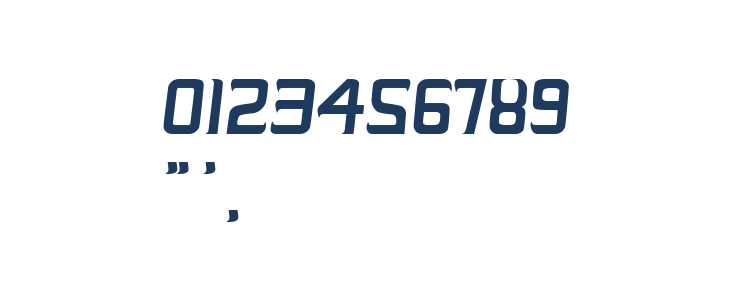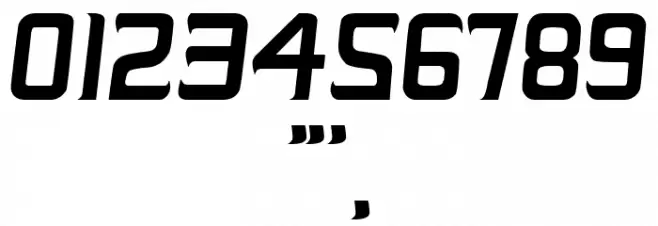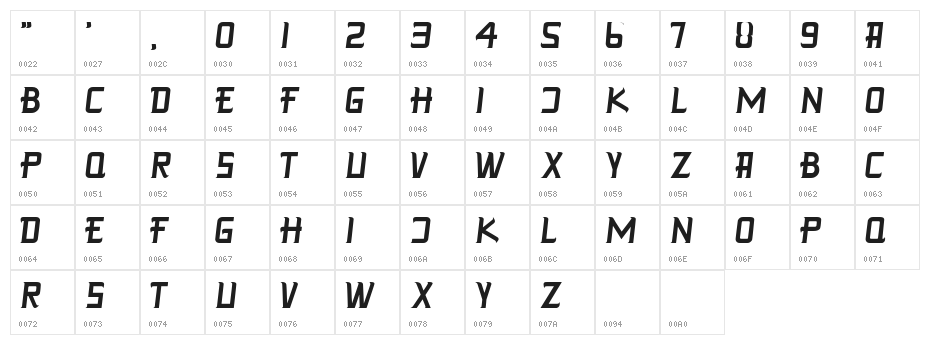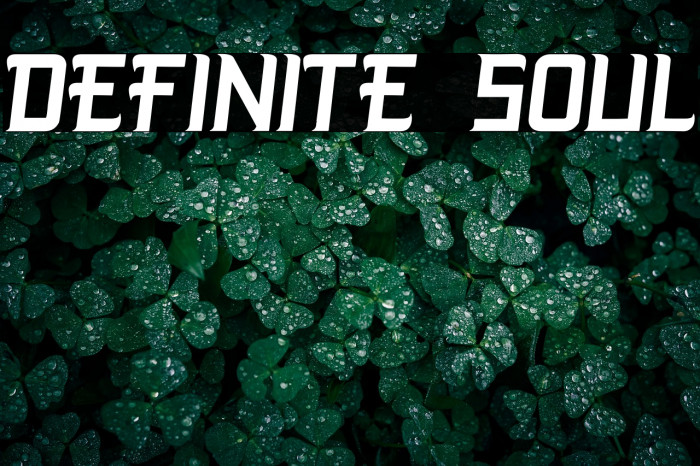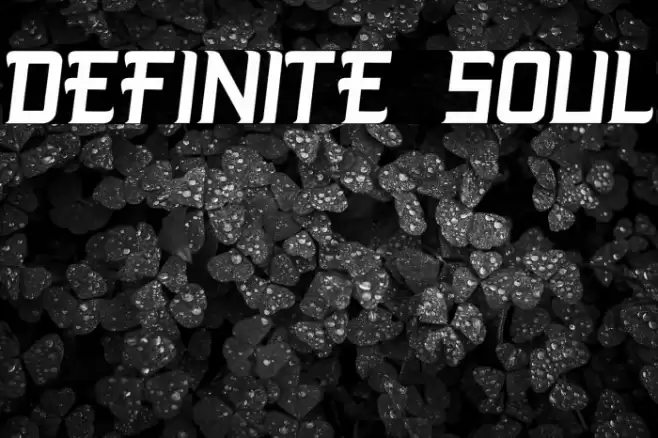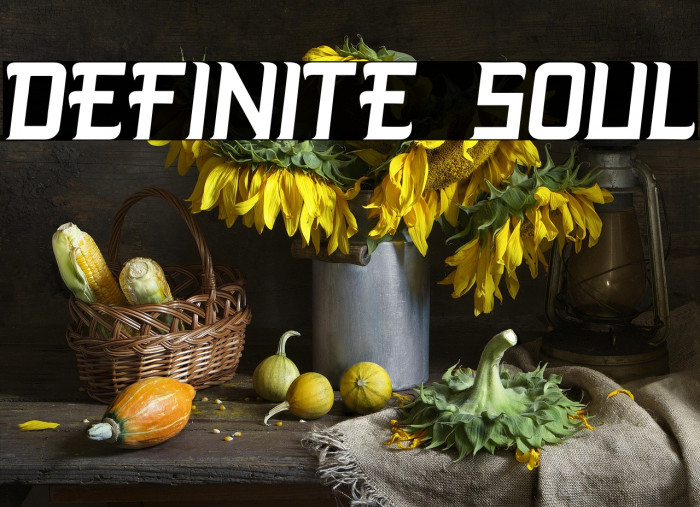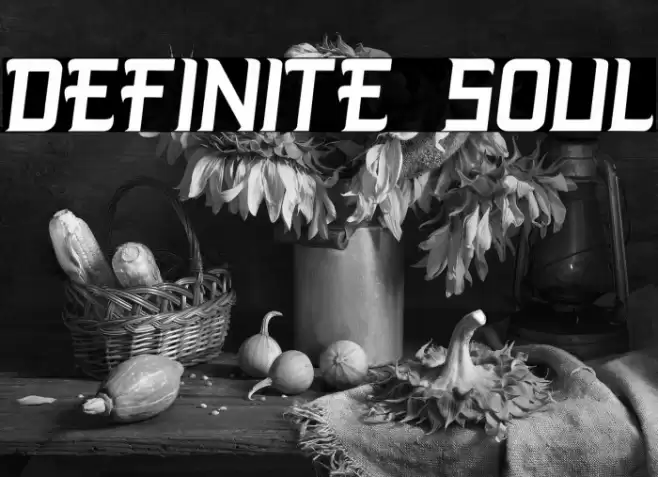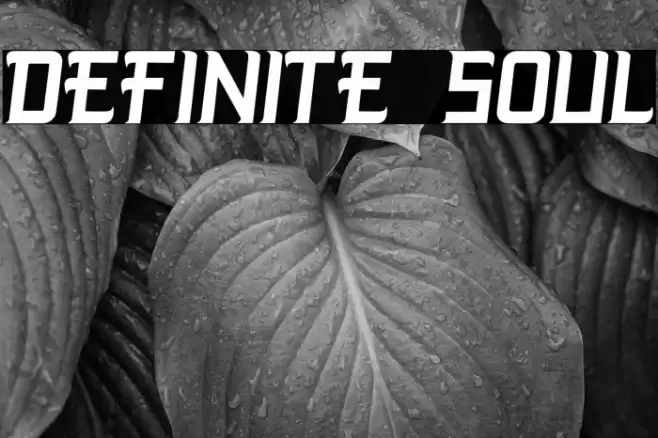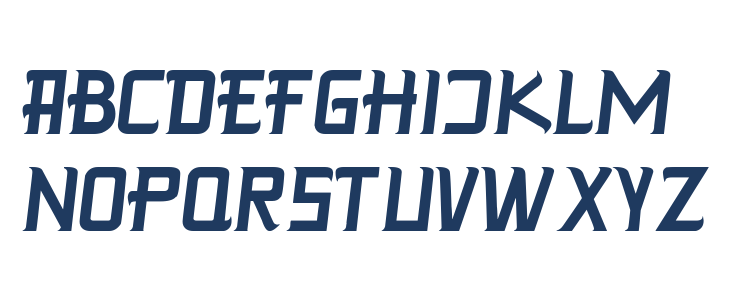
DEFINITE SOUL Font
DEFINITE SOUL Description
This font features a bold and dynamic style with a strong presence. The characters are slightly slanted, giving a sense of motion and energy. The strokes are thick and consistent, providing a uniform appearance across all letters and numbers. The design incorporates sharp angles and clean lines, making it suitable for modern and futuristic themes. The uppercase and lowercase letters maintain a cohesive look, while the numerals are distinct and easily readable. Special characters are designed to match the overall aesthetic, ensuring a seamless integration in various contexts.
| Proposed Projects | Ideal for sports branding, action-themed posters, video game titles, and dynamic logos. |